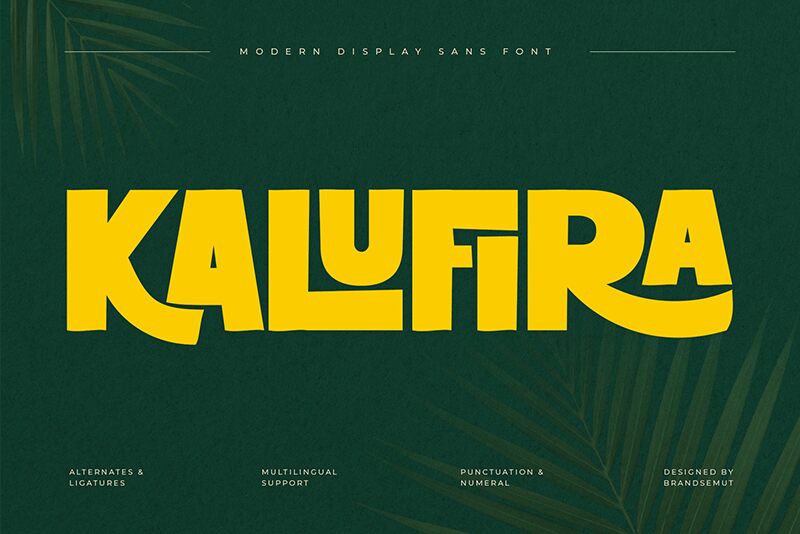
Kalufira
Kalufira font by ToniStudio is a free bold cartoon display font. Its chunky, ink-heavy shapes and soft, beveled corners feel hand-cut, with lively widths that bounce from letter to letter. The tight rhythm and stout proportions deliver punchy headlines that read fast while keeping a playful, friendly vibe.
Using Kalufira, you get standout titles for kids’ book covers, snack packaging, party invitations, YouTube thumbnails, game splash screens, school event posters, and sticker merch. This free font loves bright color blocks and thick outlines; give it a pinch of extra tracking at huge sizes. Pair with a clean geometric sans for supporting copy to keep the message crisp.